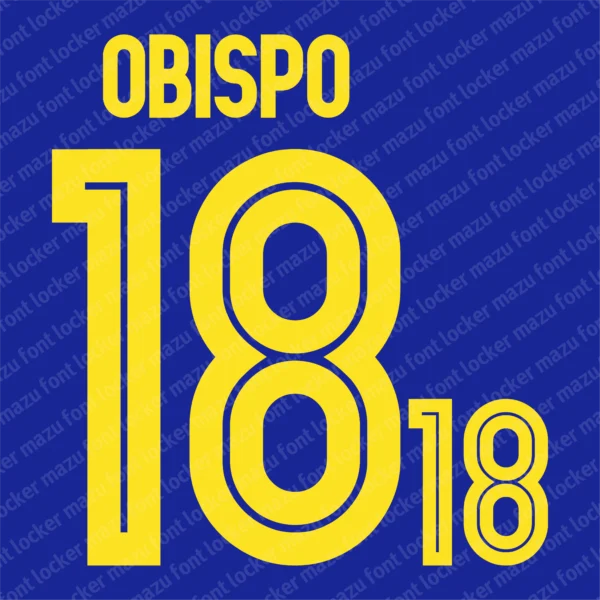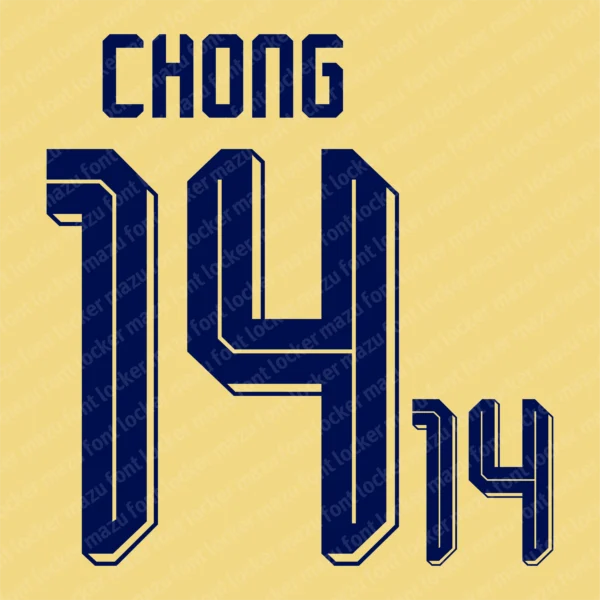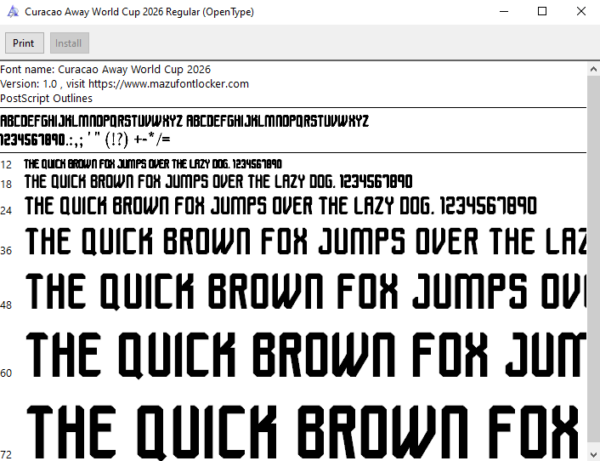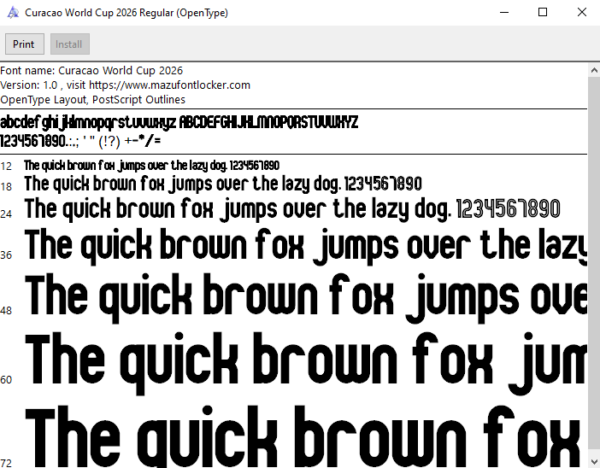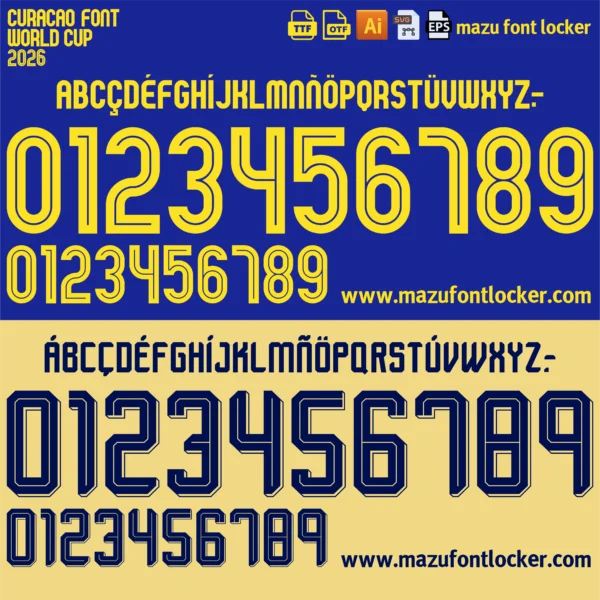
Curacao World Cup 2026 Font Vector – Epic La Fam Masterpiece
Channeling the proud Curaçaoan soul and Caribbean fire, it features the strong, rhythmic style that embodies the nation’s rise on the global stage. Perfect for premium jersey mockups, football designs, and passionate Curaçao national team art.
Curacao World Cup 2026 Font Vector – Blue Wave Typeface
The Curacao World Cup 2026 Font Vector is a premium typeface that faithfully recreates the distinctive lettering from the Curaçao National Team’s official 2026 FIFA World Cup kit. This vector font kit captures the bold, vibrant, and proud typography of the Blue Wave as they make their historic debut at the World Cup.
Why Choose Curacao World Cup 2026 Font Vector
This font set is prized for its precision and attention to detail. Every glyph has been meticulously recreated to match the official typography used on Curaçao’s 2026 World Cup home and away kits.
The letterforms are bold, modern, and slightly condensed with clean, sharp edges — delivering the vibrant Caribbean energy and the iconic blue aesthetic of the Blue Wave with excellent readability.
The numerals feature athletic proportions, strong contours, and balanced weight, making them perfect for replicating player names and squad numbers on the 2026 World Cup tournament kits.
• Full uppercase A–Z and numbers 0–9 in the official 2026 World Cup style
Curacao World Cup 2026 Campaign
Curaçao makes history in 2026 as they qualify for their first-ever FIFA World Cup. Known as the Blue Wave, the smallest nation ever to reach the World Cup has captured the imagination of the football world with their passionate style and determination. Representing the Caribbean island with pride, the team blends local talent with players of Curaçaoian heritage from Europe.
The 2026 World Cup kits, designed by Adidas, celebrate the island’s vibrant culture — from the ocean waves to the colourful buildings of Willemstad. This tournament marks a landmark moment for Curaçaoan football, symbolising hope, unity, and the growing strength of football in the Caribbean region.